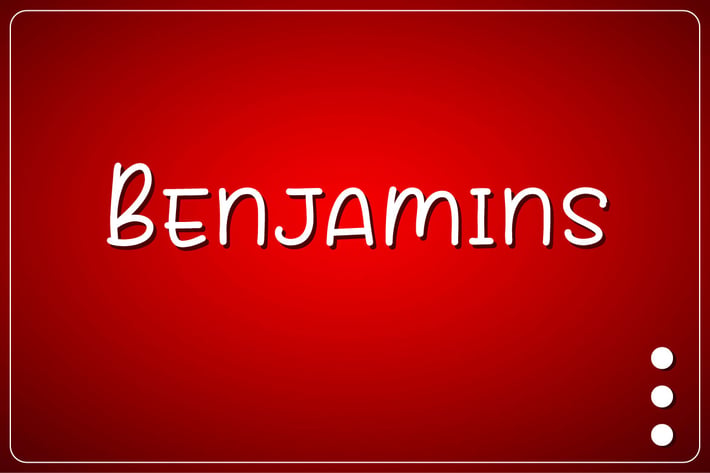
Benjamins - Simple Thin Handwritten Font
Hello! Benjamins is a minimalist handwritten font.
Benjamins can be used in any works such as flyer, book title, advertisement, social media content, logo and many more.